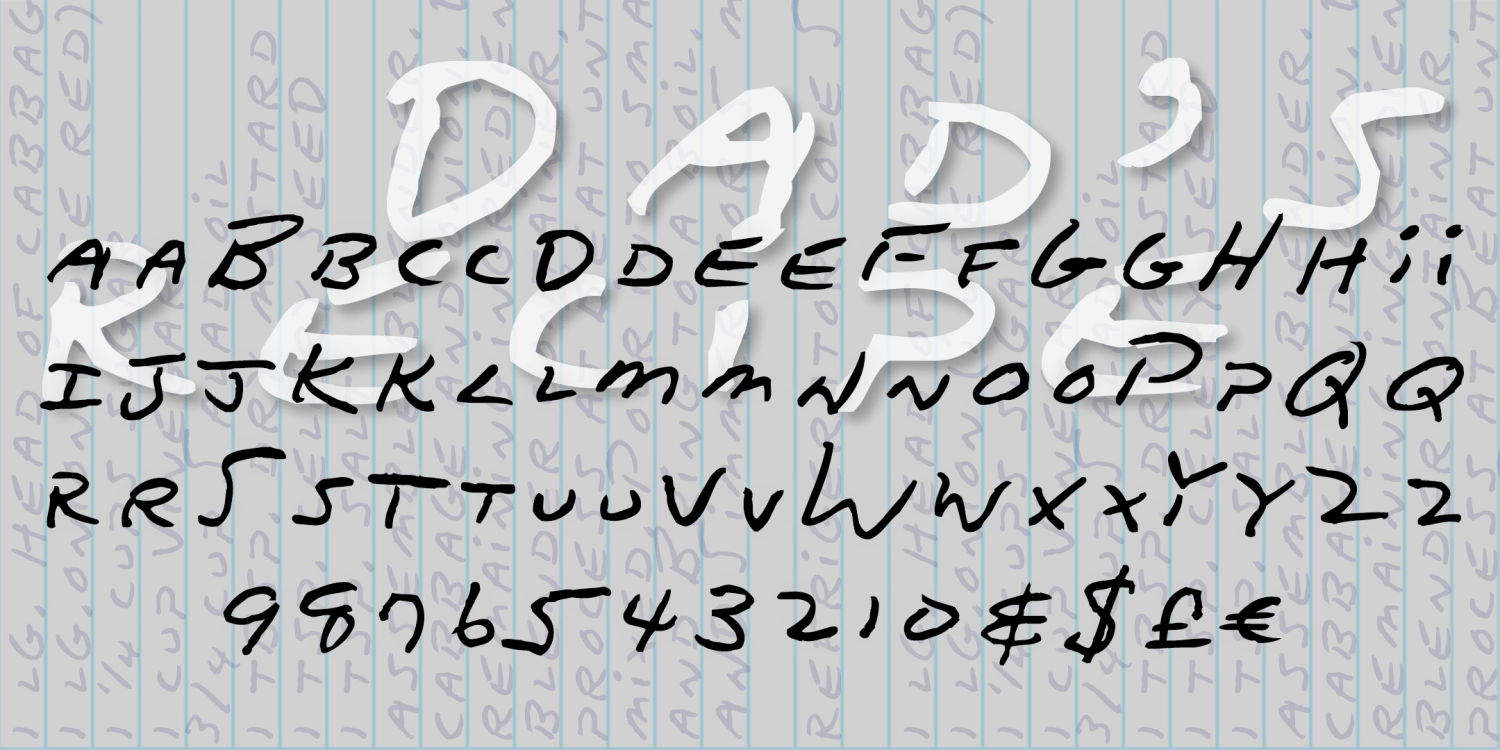
Dad's Recipe
Dad's Recipe is derived from my father's hand printing. I used a recipe he had written out for me (for cole slaw specifically) and rounded it out with other samples from my cookbook. Dad almost always used a blue ballpoint pen on lined tablet paper, so these shared recipes have a very consistent look.
The Dad's Recipe font family includes 199 glyphs.